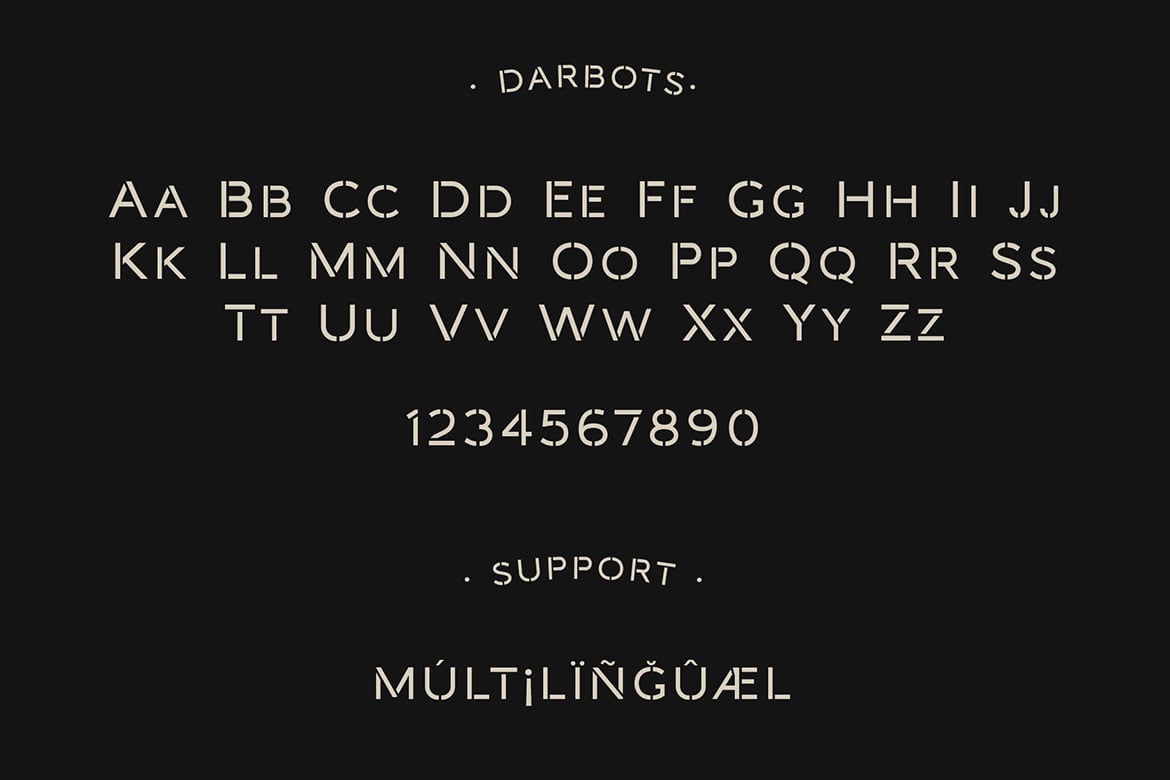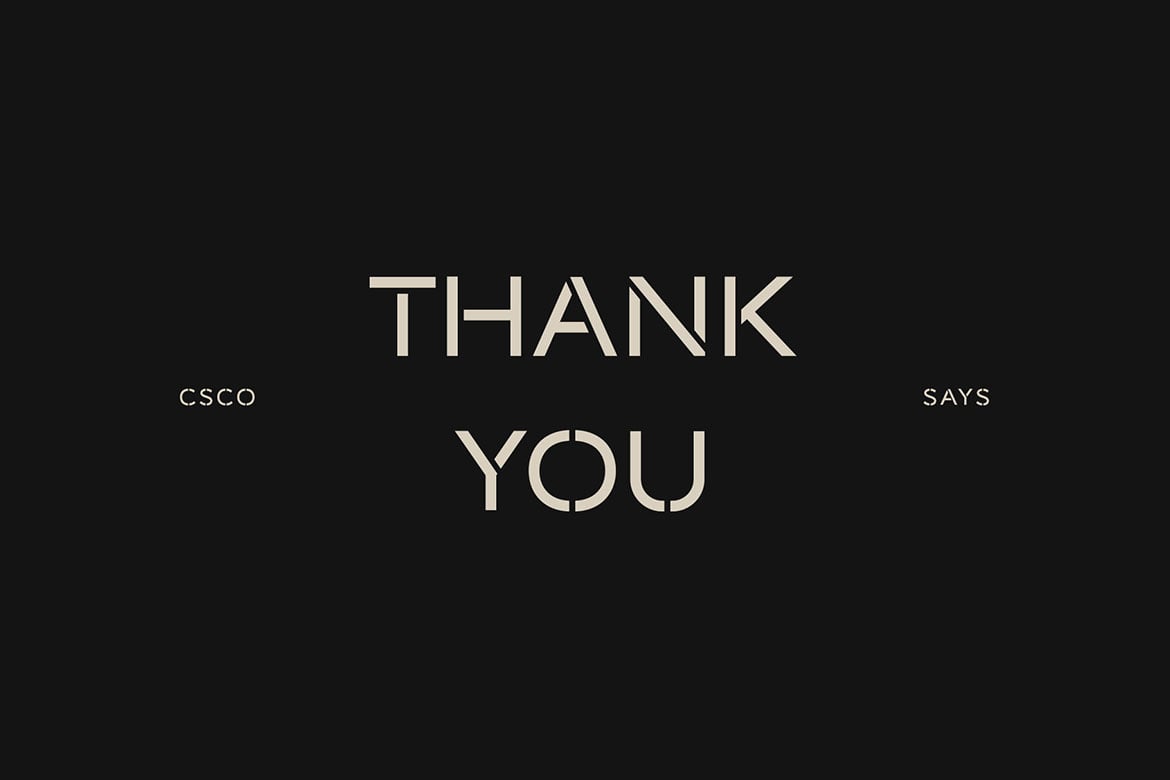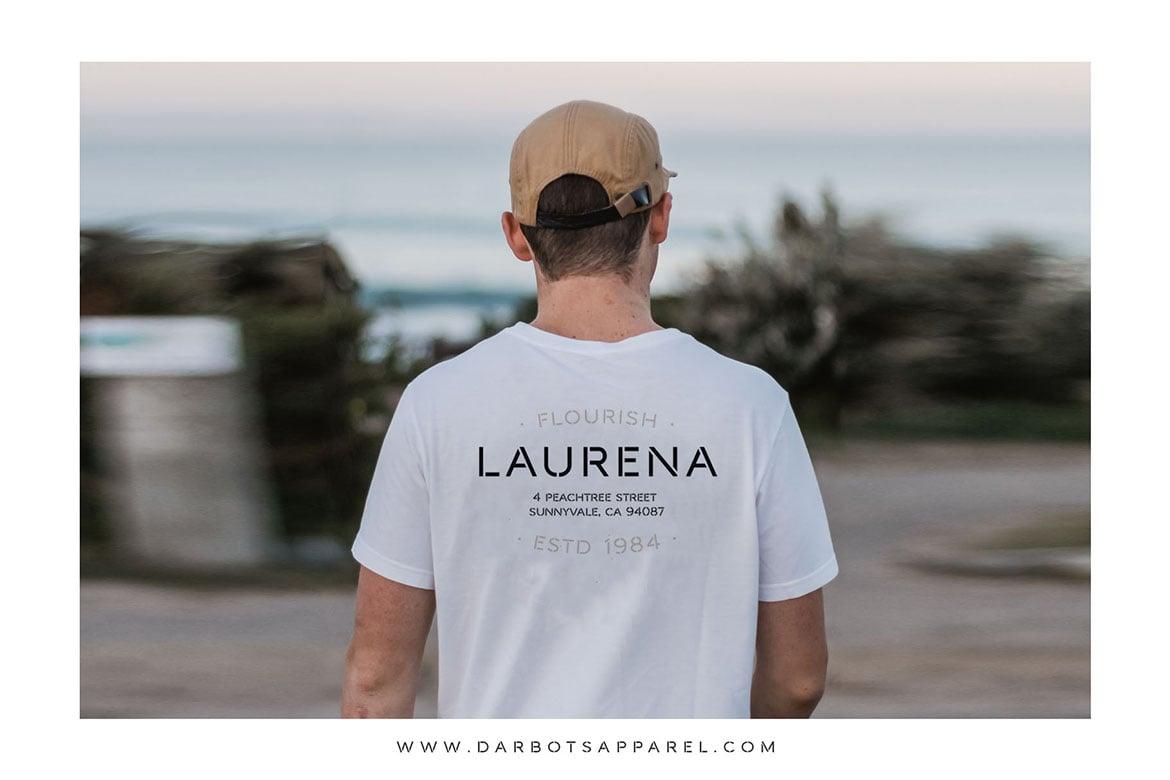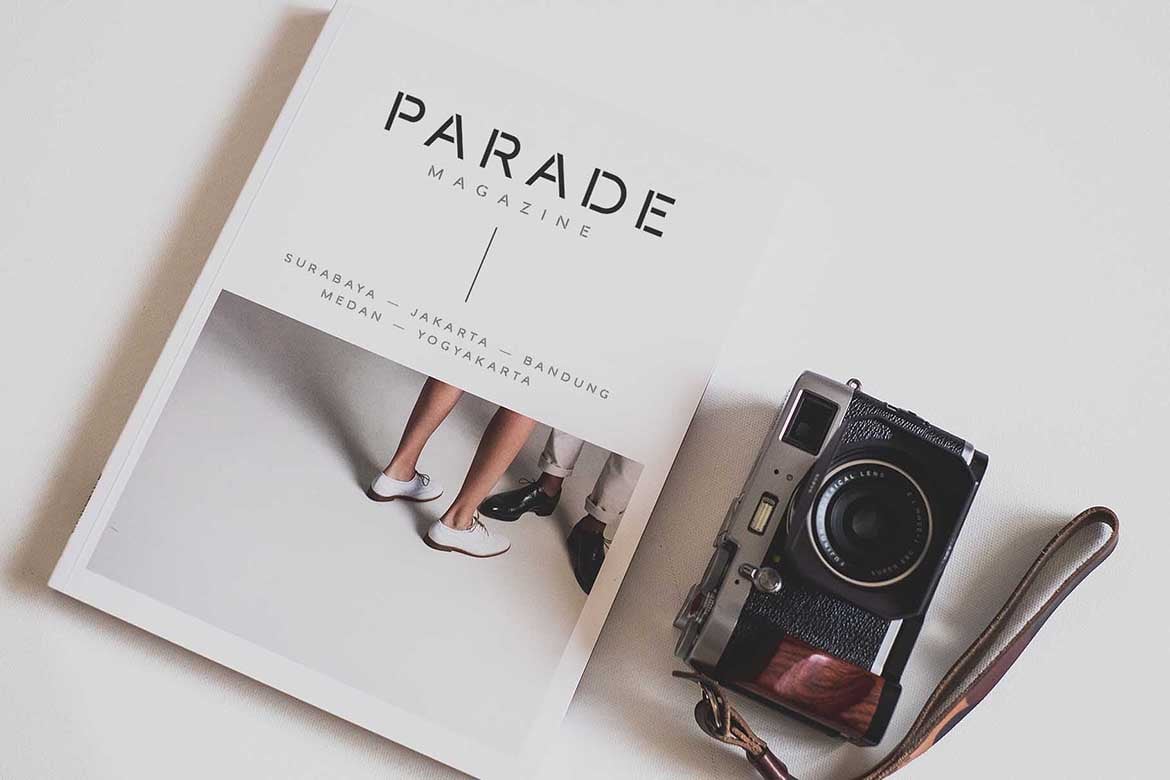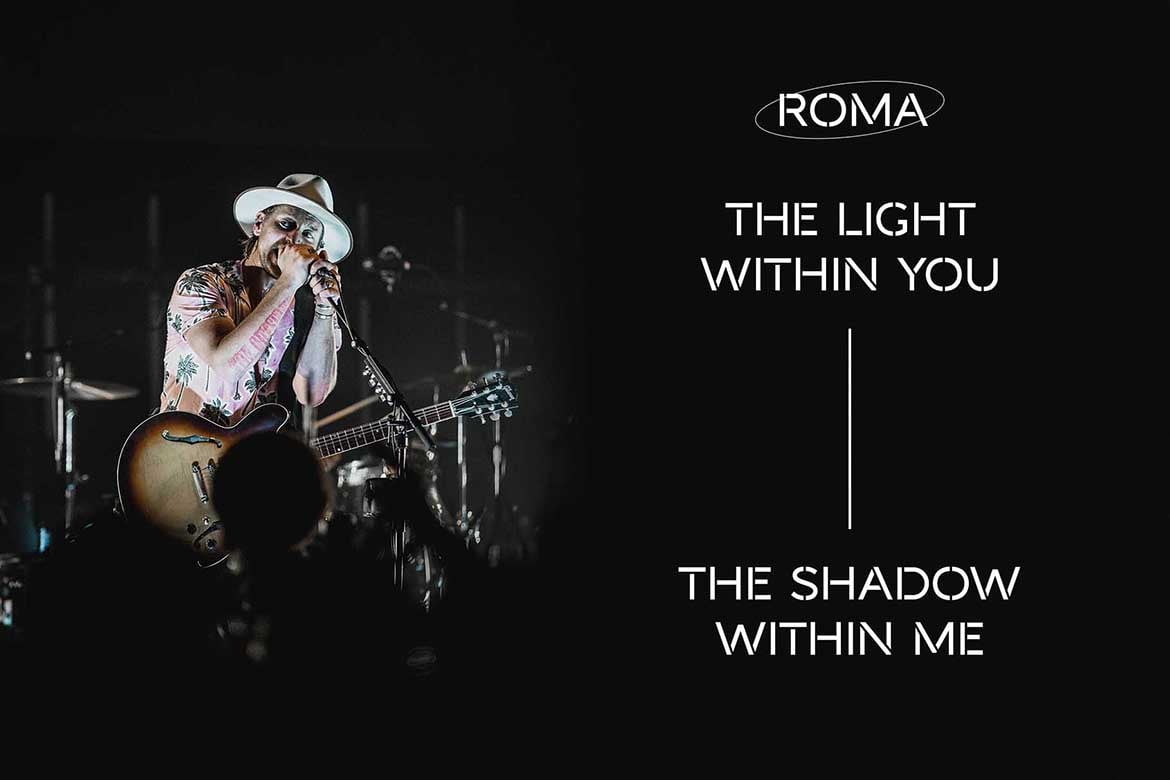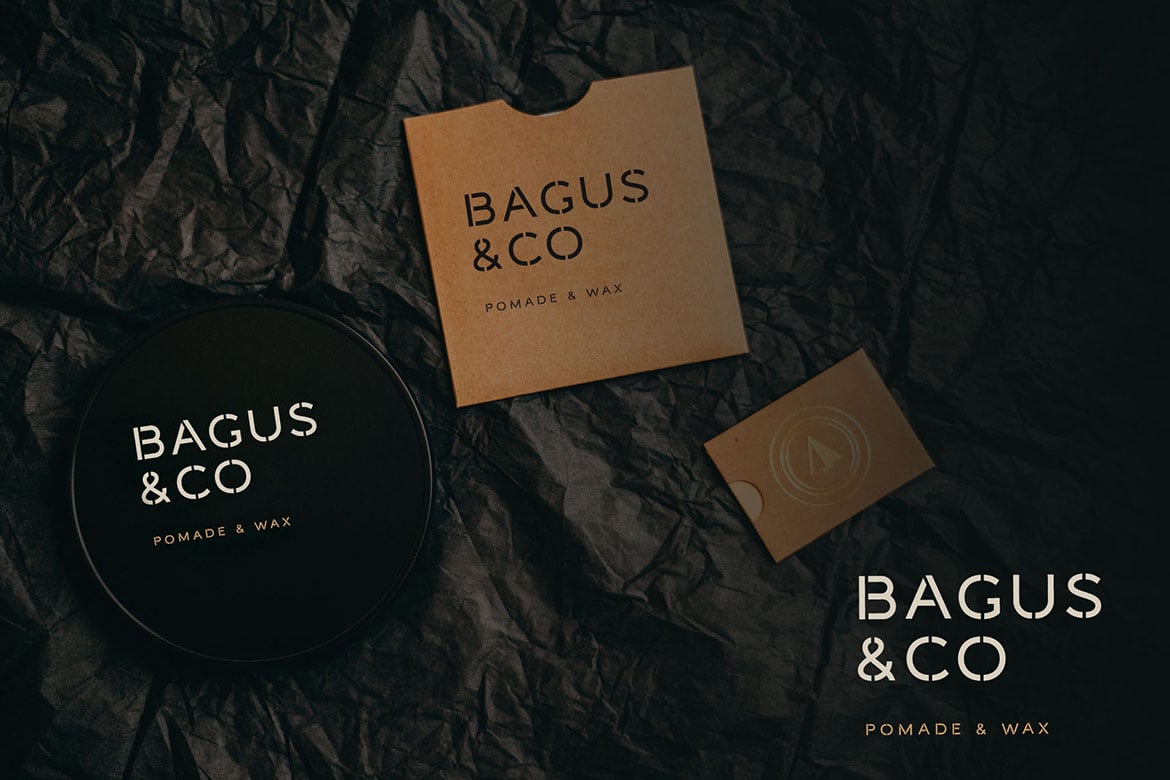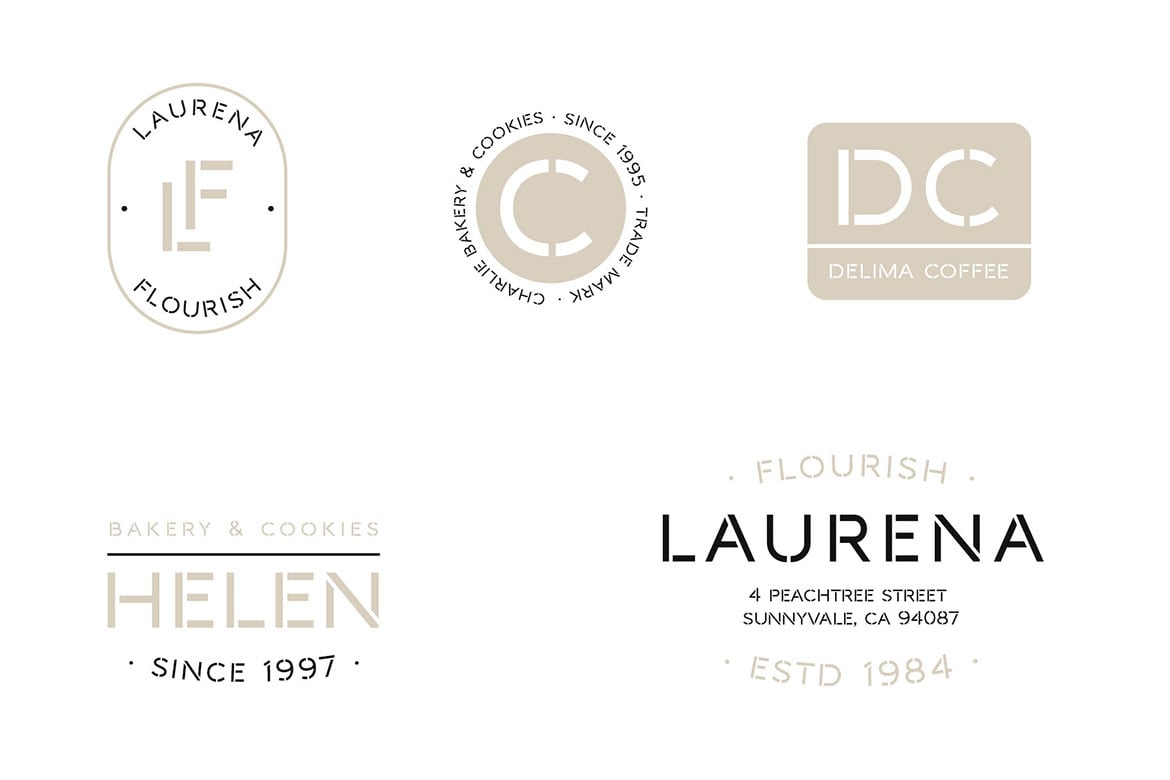
Darbots – Modern Stencil Sans Serif Font
Darbots – Modern Stencil Sans Serif Font has been crafted from scratch with a structural logic of its own: a fusion of pure geometry and optical balance. By combining a variety of styles Darbots – Modern Stencil Sans Serif Font is suitable for Logo, greeting cards, quotes, posters, branding, name card, stationary, design title, blog header, art quote, typography
Darbots – Modern Stencil Sans Serif Font also suitable for art, modern envelope lettering or book design, happening style like handdrawn design or watercolor design theme, craft design, any DIY project, book title, wedding font, pop vintage design, or any purpose to make our art/design project look pretty and trendy.
- All Caps Characters
- Standard Ligatures
- Numerals & Punctuations (OpenType Standard)
- Accents (Multilingual characters) AÀÁÂÃÄÅCÇDÐEÈÉÊËIÌÍÎÏNÑOØÒÓÔÕÖUÙÜÚÛWYÝŸỲŸÆŒßÞþ